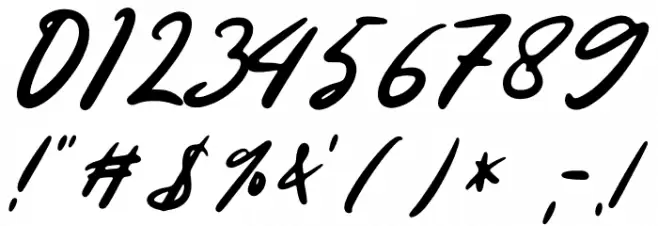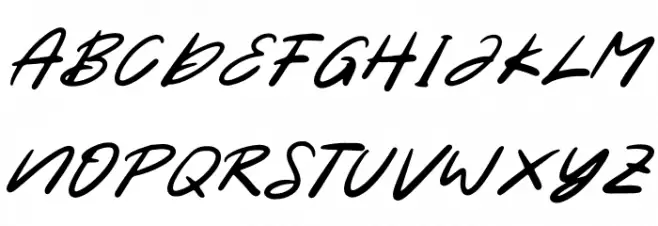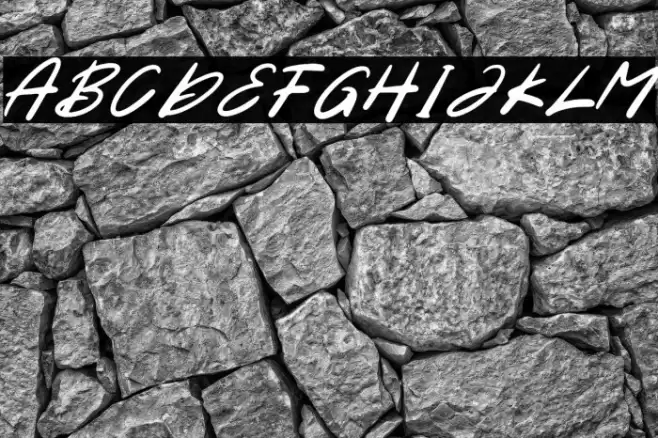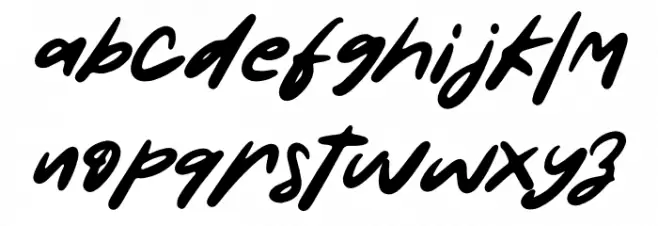
Something Shine - Personal Use Font
Something Shine - Personal Use Description
A casual, handwritten script font with a smooth, flowing style.
| Overall Style | Casual, Handwritten |
| Use Case | Headlines, Personal projects, Invitations, Greeting cards |